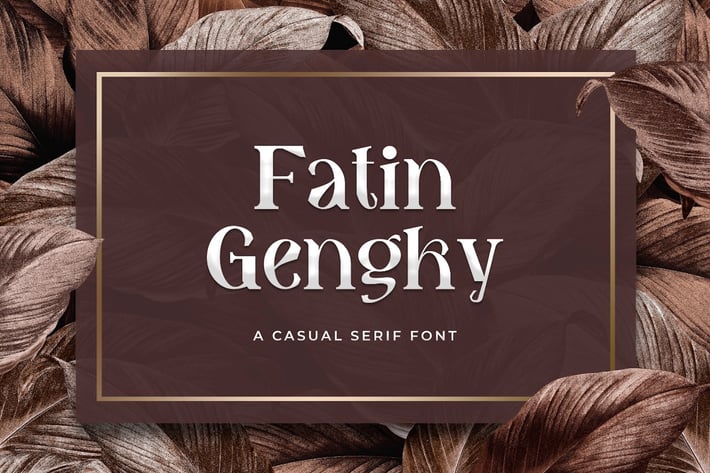
Fatin Gengky - Casual Serif Font
Introducing Fatin Gengky - Casual Serif Font
Fatin Gengky is inspired by classic typography and brings its own unique style to any design project. This fantastic serif font is best suited for headlines of all sizes, as well as for blocks of text that have both maximum and minimum variations. Whether it’s for web, print, moving images or anything else – Margin will look spectacular.